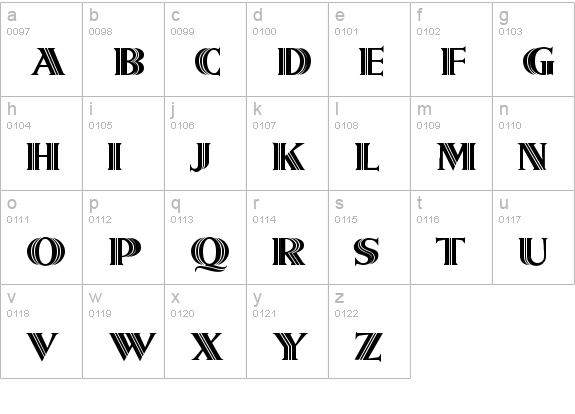
Metroliner Font Details
Metroliner is a modern and sleek font that exudes sophistication and elegance. Its clean lines and sharp angles give any design a contemporary edge, making it perfect for projects that require a touch of refinement. With its bold yet graceful presence, Metroliner commands attention and conveys a sense of professionalism. The best part about Metroliner font is that it is completely free to download at FontsMarket.com. This means you can enhance your designs with this stunning typeface without any cost, making it a valuable resource for designers and creatives alike. Whether you're working on a branding project, digital art, or any other creative endeavor, Metroliner font is sure to elevate your work to the next level. Don't miss out on the opportunity to add Metroliner font to your font library. Download it for free today at FontsMarket.com and start creating visually striking designs that leave a lasting impression.